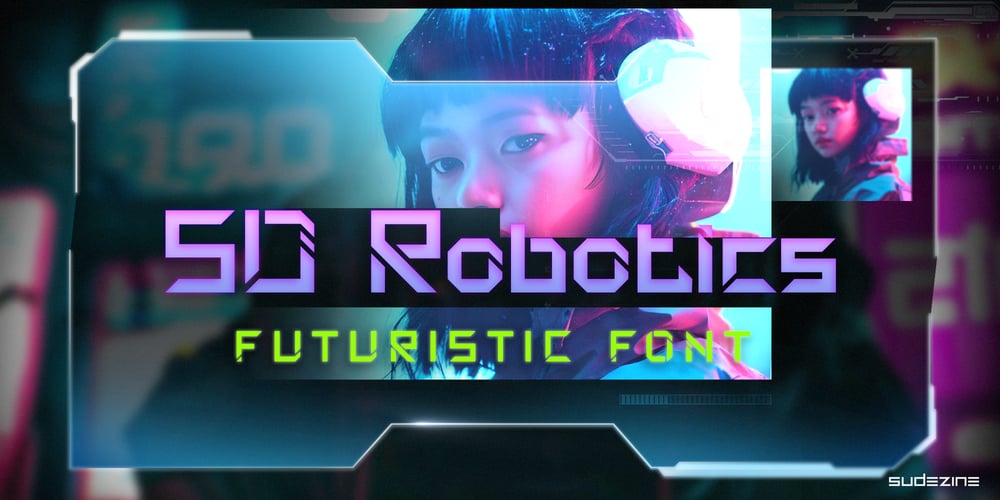
SDRobotics Font Family was designed by Suhee Hwang and published by Sudezine. SDRobotics contains 1 styles and family package options. SDRobotics is a Futuristic Science Font, Use logos, quotes, invitations, greeting cards, journals, posters, clothing, and more